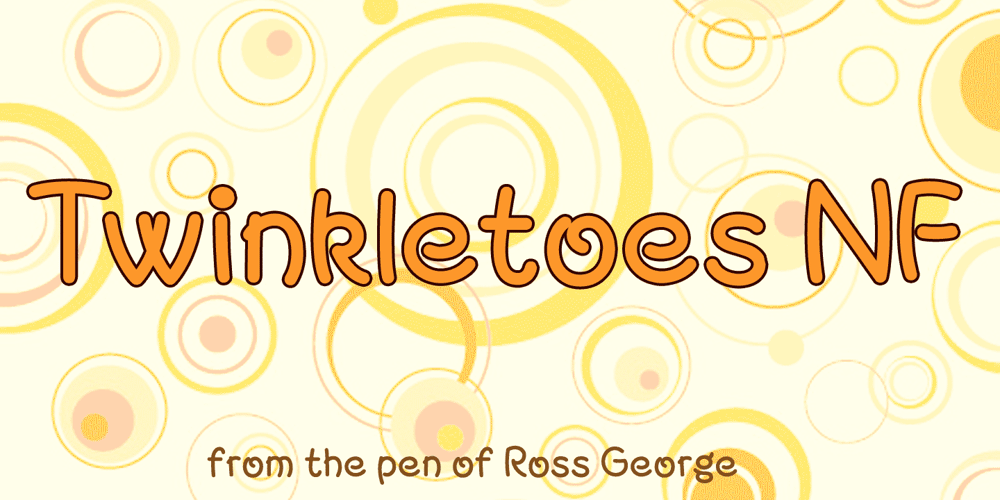
Twinkletoes NF
Twinkletoes NF font
Twinkletoes NF Font Family was designed by Ross F. George and published by Nick’s Fonts. Twinkletoes NF contains 1 styles and family package options. The Speedball Handbook strikes again, with this charming and playful offering from the pen of Ross George. Use it whenever you’re tempted to use Comic Sans. Both versions of this font support the Latin 1262, Central European 1250, Turkish 1254 and Baltic 1257 codepages.